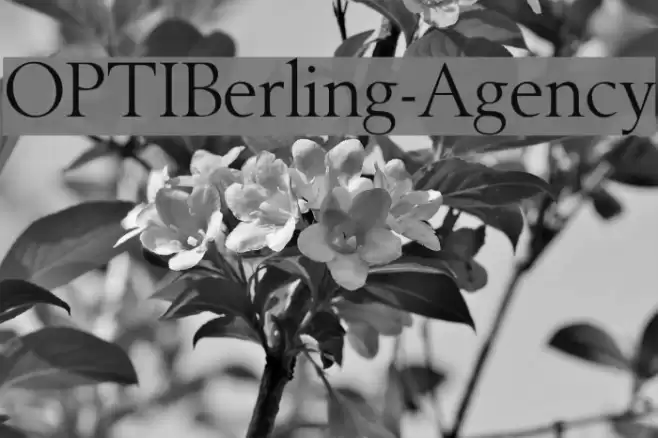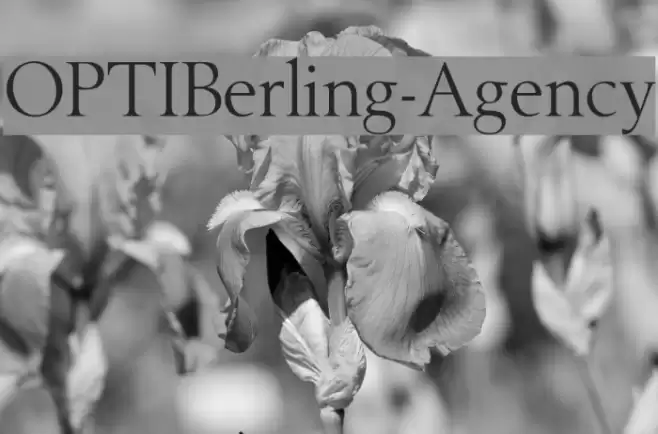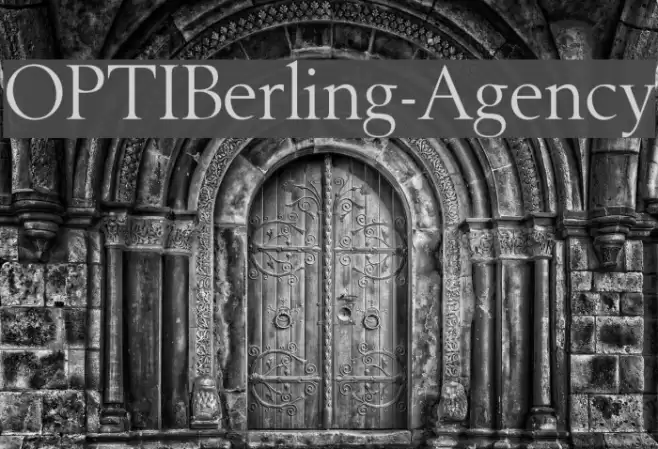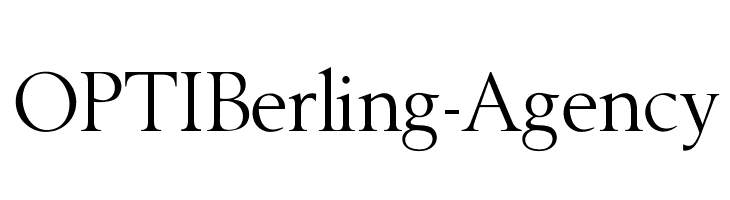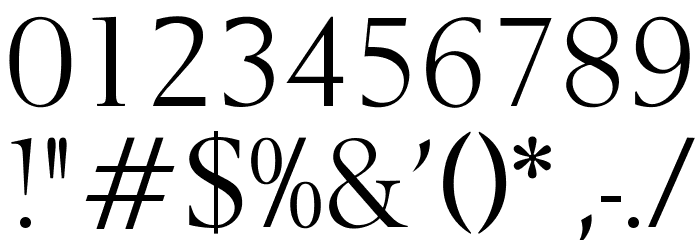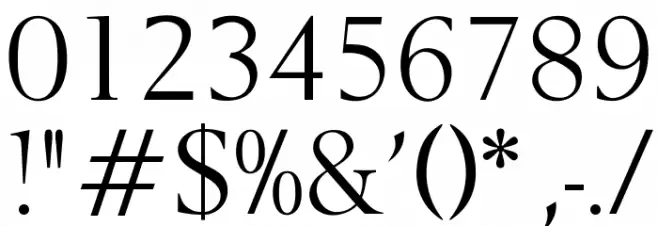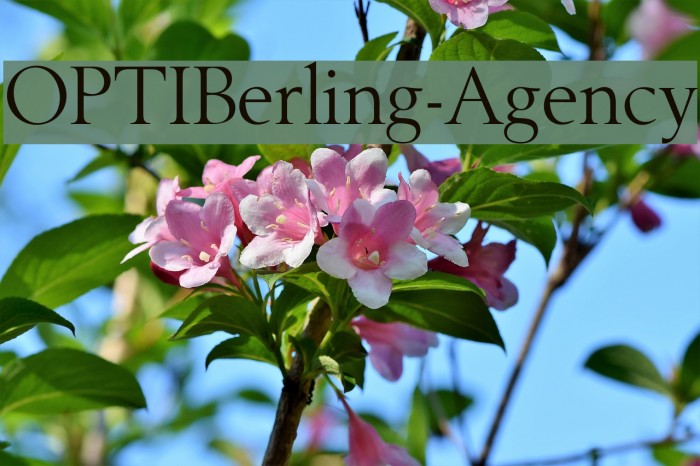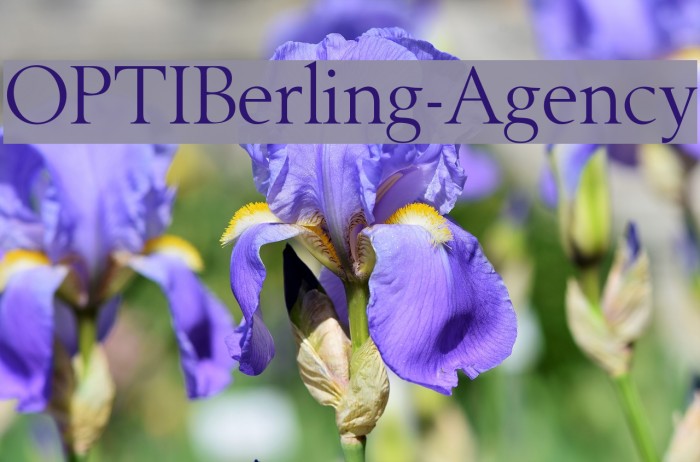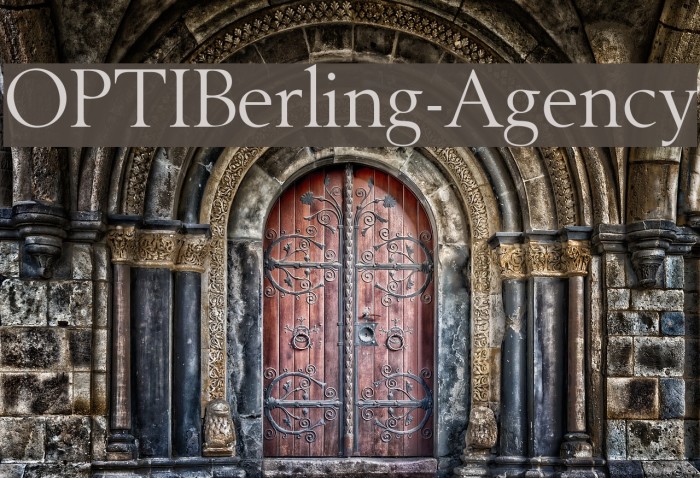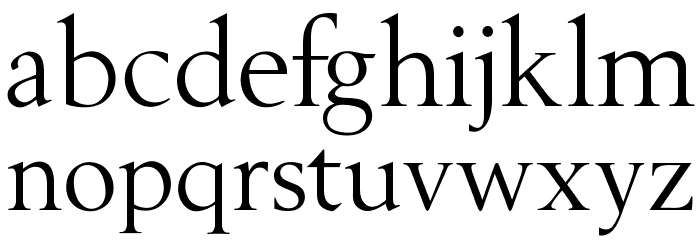
OPTIBerling-Agency Font
OPTIBerling-Agency Description
This font exudes a classic elegance with its refined serif style, characterized by sharp, clean lines and a balanced proportion that enhances readability. The uppercase letters are stately and commanding, while the lowercase letters maintain a graceful flow. The numerals are clear and distinct, making them suitable for both formal and informal settings. Special characters are designed with precision, adding to the font's versatility. Its timeless appeal makes it suitable for a variety of design projects.
A classic serif font with elegant, sharp lines and balanced proportions from Uncategorized fonts.
- Proposed Projects: Ideal for book covers, editorial design, formal invitations, and branding materials.
- Overall Style: Classic